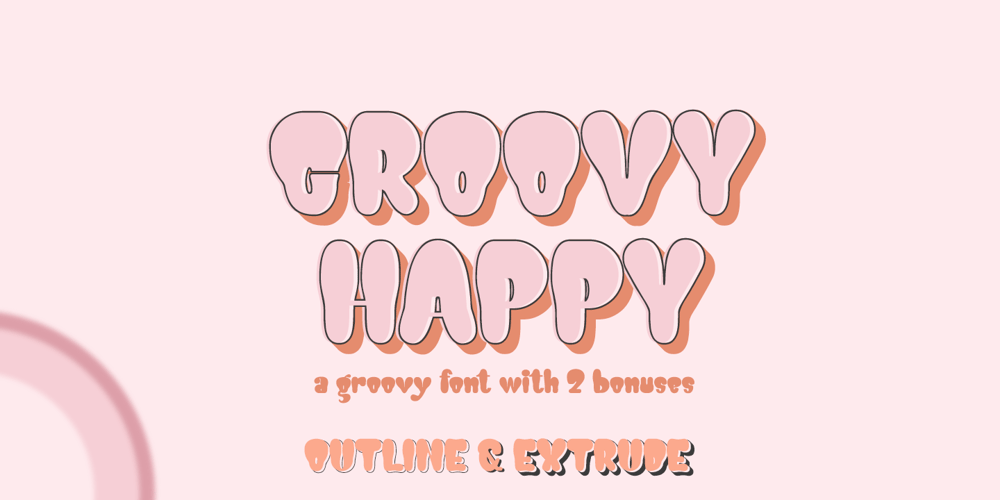
Groovy Happy Font Family was designed by Sarwo Edhi Prayitno and published by Haksen. Groovy Happy contains 3 styles and family package options. GROOVY HAPPY FONT A hand-drawn, bubbly font with a groovy look!There are three fonts included : Regular Outline Extrude. GROOVY HAPPY is perfect for: shirts, retro designs, procreate, stickers, logos, branding, greeting cards, Cricut projects, posters, magazines, social media, prints and more!Have a great day,Haksen